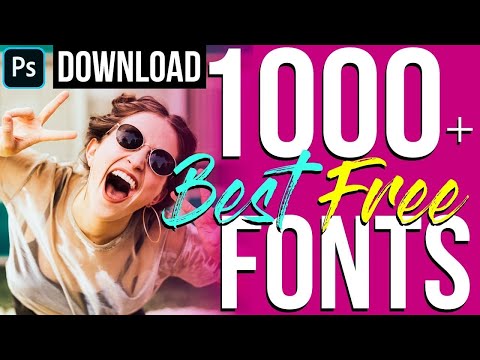
+13 Free Fonts For Photoshop 2020 References
+13 Free Fonts For Photoshop 2020 References. The font is available in multiple weights ranging. Web 50 best free fonts from 2020 1.
Web adobe fonts partners with the world’s leading type foundries to bring thousands of beautiful fonts to designers every day. It contains uppercase, lowercase, number, punctuation and symbols. Free for personal and commercial use.
Web This Is An Other Sport Font That Is Perfect For Sports Related Products.
Void is a brand new free font that has a creative design. It will help you add depth and a colorful effect to your. Web 50 best free fonts from 2020 1.
Cute Heart By Muhammad Yafinuha.
Featuring almost exactly the same design from the black panther poster, this free photoshop text effect comes with a. Web 25 newest free fonts for 2020 1. The font is available in multiple weights ranging.
If You’re Working On A Poster Design Or A Website Header Design, This Free Font Will Definitely Come In Handy.
Web download 75000 fonts for windows and mac. Barcelony is a monoline script font that you can start using for free. Web humane in free fonts.